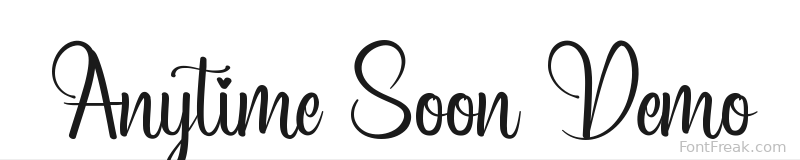
Anytime Soon Demo
About Anytime Soon Demo
The Anytime Soon Demo font by Noah Type is a beautifully crafted script typeface that exudes charm and elegance. As a handwritten style font, it features fluid strokes that give it a personal touch, making it ideal for projects that require a warm, inviting feel. The font showcases a moderate stroke weight with gentle curves, creating a harmonious balance between readability and artistic flair. The spacing between letters is carefully considered, providing a comfortable flow that enhances its overall aesthetic.
This font is particularly well-suited for a variety of creative applications. It shines in wedding invitations, where its romantic style can set a whimsical tone for the special day. Additionally, it works perfectly for branding projects, such as logos for boutique shops or artisanal products, where a distinct personality is crucial. The Anytime Soon Demo font can also elevate restaurant menus, adding a touch of sophistication to the dining experience. For content creators, it offers an appealing option for social media graphics, helping to capture the audience's attention with its unique flair.
What sets the Anytime Soon Demo font apart is its ability to combine elegance with approachability. Whether used in digital or print formats, it brings a delightful character that can transform ordinary designs into something memorable. With its unique charm and versatility, this font is sure to become a favorite in any designer's toolkit.